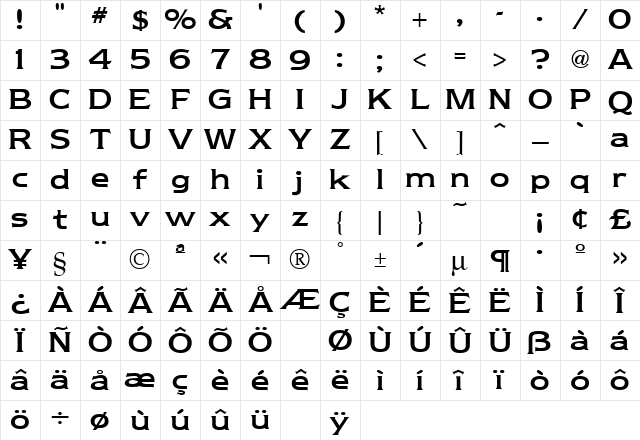
Newtext Reglr Regular Free Font
Newtext Reglr Regular
Newtext Reglr Family
Design Context for Newtext Reglr
Newtext Reglr is a composed and adaptable typeface that performs quietly and consistently across a wide range of design contexts.